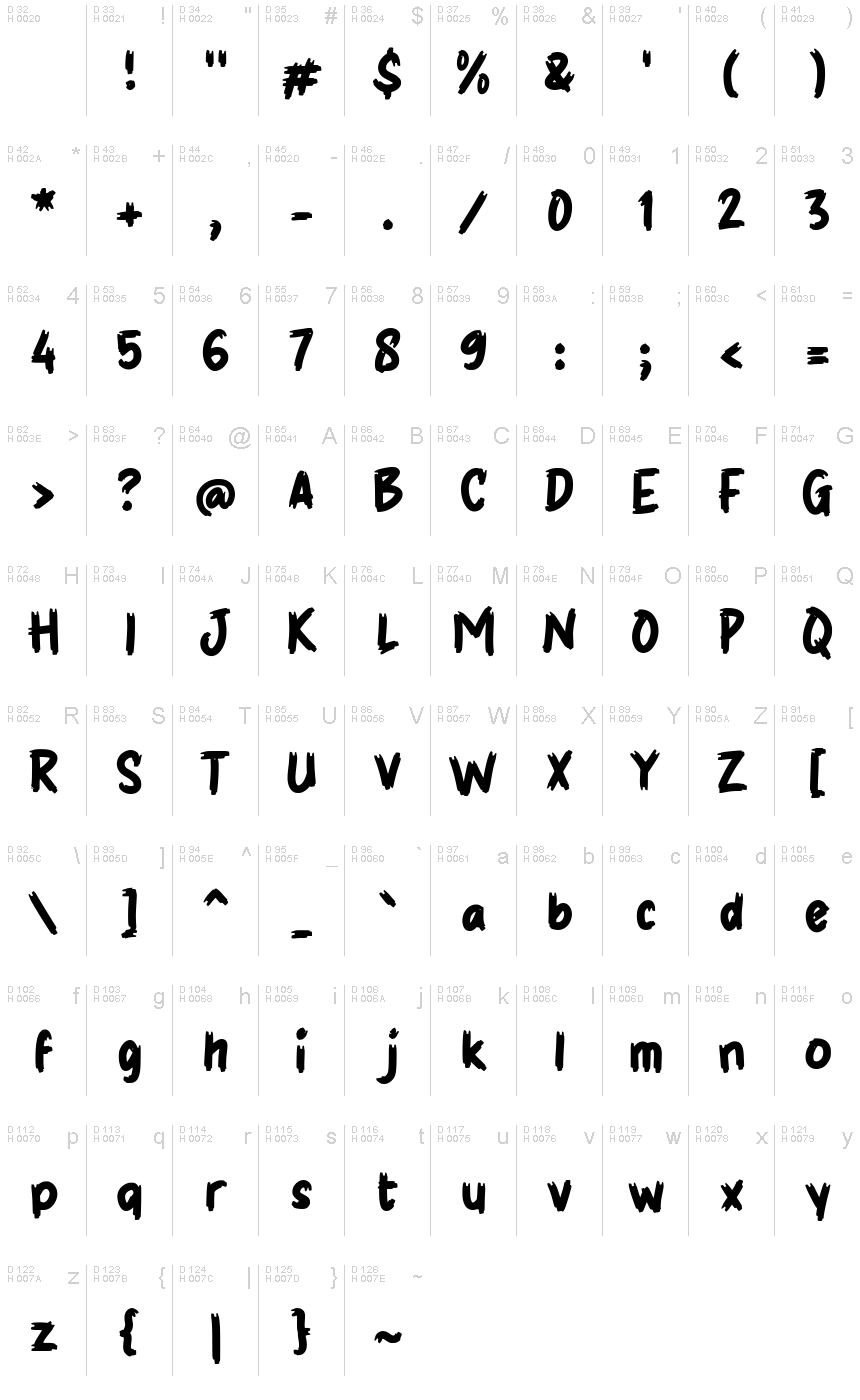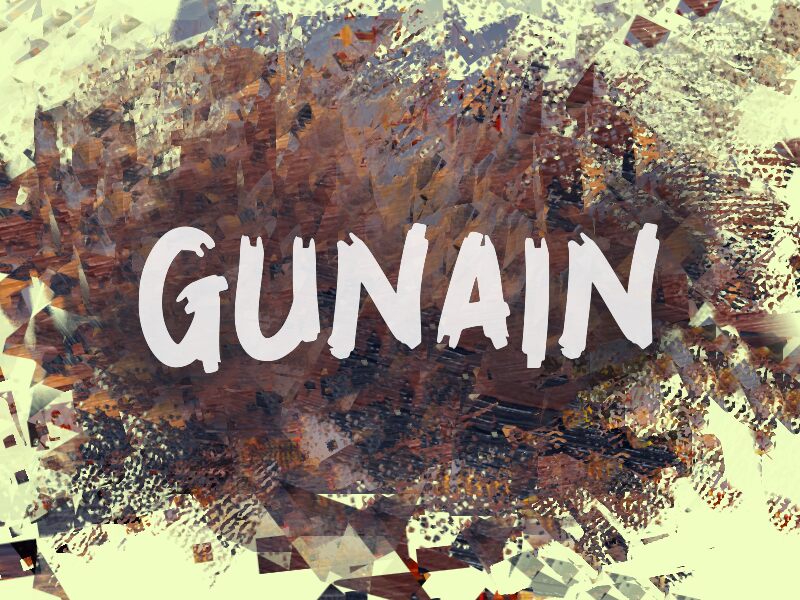
GUNAIN
Gunain is a bold, brush-style font that exudes an organic, handwritten charm. Crafted by wep, this captivating typeface boasts fluid, expressive strokes that lend an unmistakable personality to any design. The font's bold, dynamic presence commands attention, while its natural aesthetic evokes a sense of warmth and authenticity.
The versatility of Gunain makes it a versatile choice for a wide range of design applications, from editorial layouts and packaging to event branding and social media content. Its distinctive character lends an air of artisanal sophistication, particularly well-suited for projects that seek to convey a handcrafted, artisanal aesthetic. Gunain's bold, expressive forms also make it an excellent option for headlines, titles, and other display text, where it can effortlessly grab the viewer's attention.
Gunain
The versatility of Gunain makes it a versatile choice for a wide range of design applications, from editorial layouts and packaging to event branding and social media content. Its distinctive character lends an air of artisanal sophistication, particularly well-suited for projects that seek to convey a handcrafted, artisanal aesthetic. Gunain's bold, expressive forms also make it an excellent option for headlines, titles, and other display text, where it can effortlessly grab the viewer's attention.
Gunain